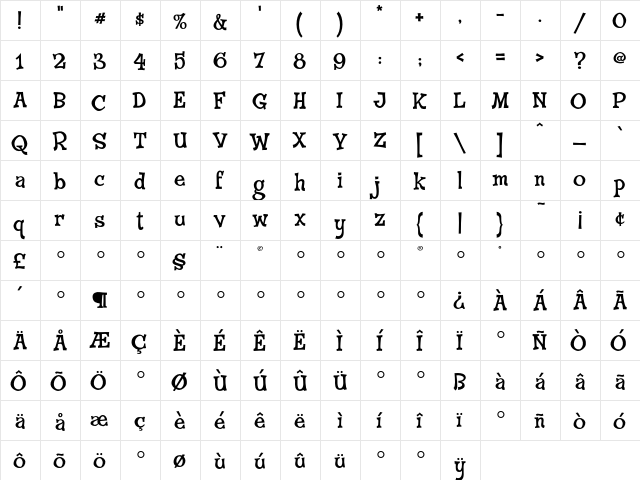
FinkRoman Medium
Design Context for FinkRoman Typeface
FinkRoman takes a measured approach to typography — its balanced proportions and neutral character make it a reliable workhorse for both digital and print work.